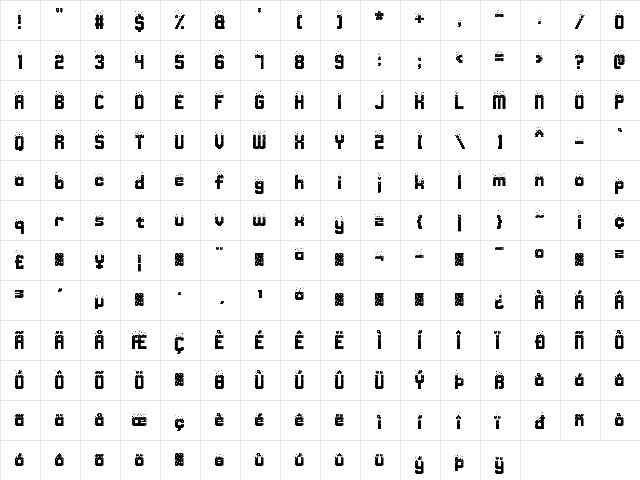
Nightmare Codehack Regular
Design Context for Nightmare Codehack Typeface
Nightmare Codehack brings the precise, column-aligned rhythm of monospaced typography to designs that value technical clarity and systematic order.
A natural fit for code editors, technical documentation, developer-focused branding, and terminal-inspired UI.
Pro Tip: Pair Nightmare Codehack with a proportional sans for UI contexts where code-style labels and regular body copy need to coexist.